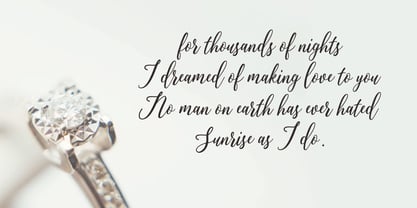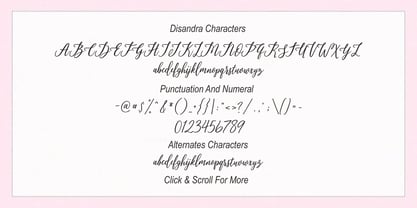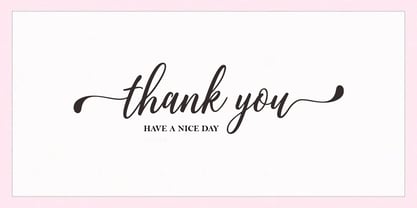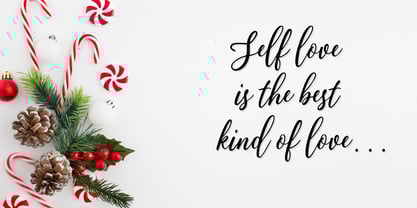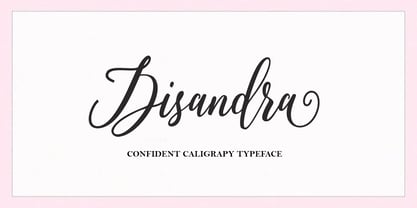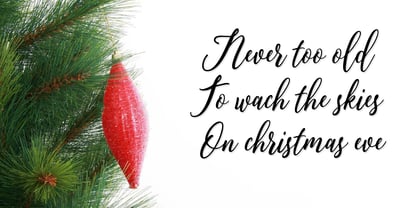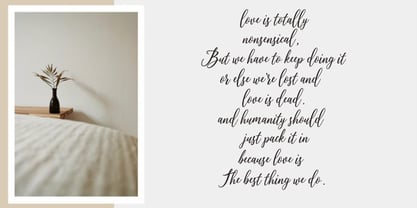
Disandra
by Scoothtype
The Disandra Font Family was designed by Muammar and published by Scoothtype. Disandra contains 3 styles and family package options. More about this family
Stylistic Script Font: Disandra
Disandra is a sophisticated and elegant stylistic script font that exudes charm and refinement. Designed with flowing, graceful curves and intricate details, this font embodies the essence of hand-crafted calligraphy. Its stylish swashes and smooth ligatures make it perfect for creating visually stunning designs that demand attention.
Disandra is versatile and well-suited for a variety of applications, including wedding invitations, luxury branding, fashion labels, and high-end packaging, allowing for endless customization to achieve the perfect look for your project.
With its timeless appeal and refined aesthetic, Disandra brings a touch of elegance to any design, making it a go-to choice for those looking to add a sophisticated flair to their work.
Designers: Muammar
Foundry: Scoothtype